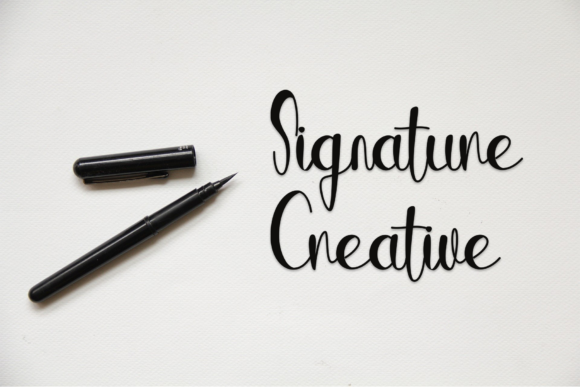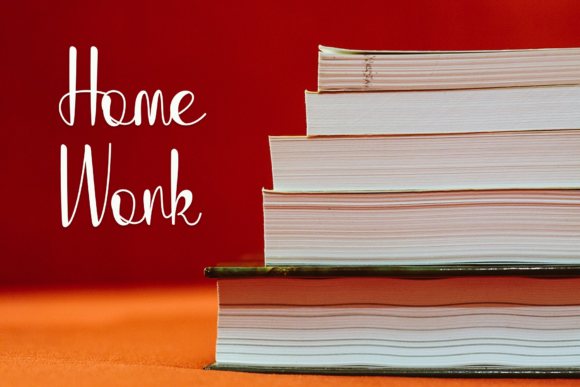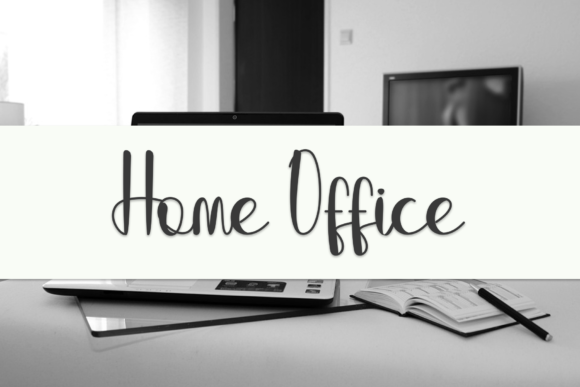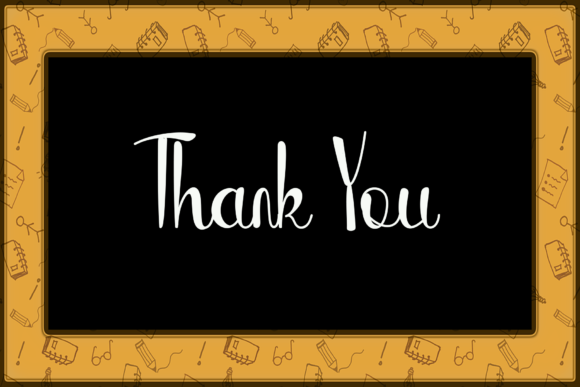
Introduction to Beautifull Homework Font Font
Fonts play a crucial role in design, and the Beautifull Homework Font font is a typeface that brings both character and versatility to any project. Whether you’re working on a branding project, a website, or a print design, the Beautifull Homework Font font offers a unique style that can elevate your work.
Beautifull Homework is a relaxed and adaptable handwritten font.
Key Features of Beautifull Homework Font Font
Why Choose Beautifull Homework Font Font?
The Beautifull Homework Font font is more than just a typeface – it’s a design tool that helps you communicate your message with style and clarity. Its unique character set and versatile design make it suitable for a wide range of applications, from elegant invitations to bold headlines.
With its carefully crafted letterforms and balanced proportions, the Beautifull Homework Font font ensures readability and visual appeal across all mediums.
What makes Beautifull Homework Font font special?
The Beautifull Homework Font font stands out with its unique design, exceptional readability, and versatility across various design applications.